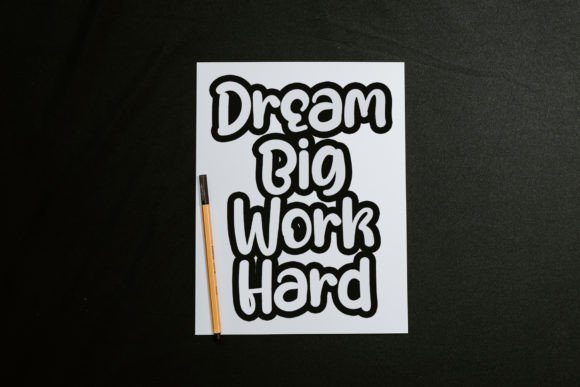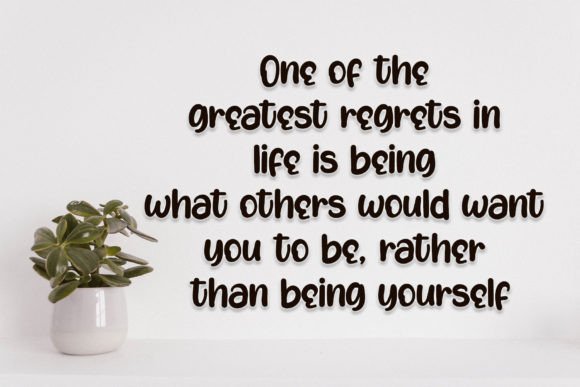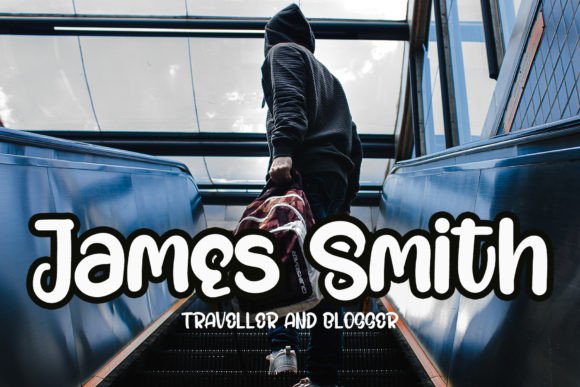
Introduction to Quickly Font
You’ve spent hours pouring your heart and soul into a design project, and just as you’re about to hit publish, you realize it’s missing that one final touch. You want your creation to stand out, to make a statement, to leave a lasting impression. That’s where the Quickly Font comes in – a high-quality, bold font designed to draw attention and elevate your creative project to the next level.
As a designer, you’re always on the lookout for the perfect font to match your vision. And with the Quickly Font, you’ve got it. Its vibrant, sport-inspired design is perfect for projects ranging from team jerseys and league posters to movie titles and book covers. Whether you’re working on a free download or a paid design resource, this font is sure to add that extra oomph you need to make your project shine.
Key Features of Quickly Font
- High-quality font with a transparent background, perfect for creative projects and design resources.
- Features a unique, modern design with a wide range of characters, including international characters and symbols, making it suitable for a variety of creative projects.
Honest Review: Quickly Font
As a designer, I’m always on the lookout for high-quality design resources to elevate my creative projects. Recently, I stumbled upon Quickly Font, a free download that caught my attention. Let’s dive into my honest review.
- Modern aesthetic: Quickly Font features a sleek and modern design that’s perfect for contemporary projects.
- Transparent background: The transparent background option allows for seamless integration with any background image or color.
- High-quality glyphs: The font’s glyphs are crisp and clear, making it ideal for body text or headings.
- Limited language support: Quickly Font primarily supports Latin-based languages, which might be a limitation for designers working with non-Latin scripts.
- No bold or italic variations: The font only comes in regular weight, which might not be suitable for projects requiring bold or italic text.
Overall, Quickly Font is a solid addition to any designer’s library. While it has some limitations, its modern aesthetic and high-quality glyphs make it a great choice for creative projects. If you’re looking for a free design resource, Quickly Font is definitely worth checking out.
Quickly Font
The Quickly Font is a high-quality, free download design resource ideal for creative projects requiring a unique and eye-catching aesthetic. Its transparent background makes it versatile for use in various applications.
Tips for Getting the Most Out of Quickly Font
Experiment with different font sizes, colors, and arrangements to achieve the desired effect.
The Quickly Font is suitable for various creative projects, including:
Blog posts, social media graphics, and advertising materials.
Infographics, presentations, and reports.